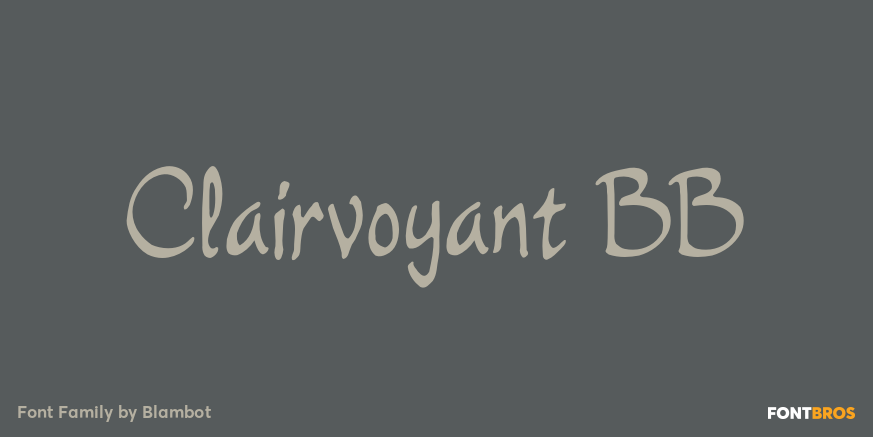
Clairvoyant BB
About Clairvoyant BB
A quill pen-style font, hand lettered by Nate Piekos for your inner thoughts and secret wishes. But your thoughts may not be your own! Comes with Regular and Italic and has an impressive compliment of European characters.